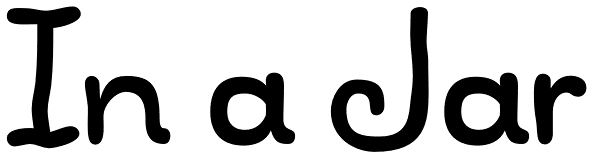
In a Jar
In a Jar is a display typeface based in hand lettering. Inspired by the grandmother's kitchen, its colors, forms, smells and the new way for rescue this old things. Designed for use in short text and big sizes is perfect for brand design, headlines...